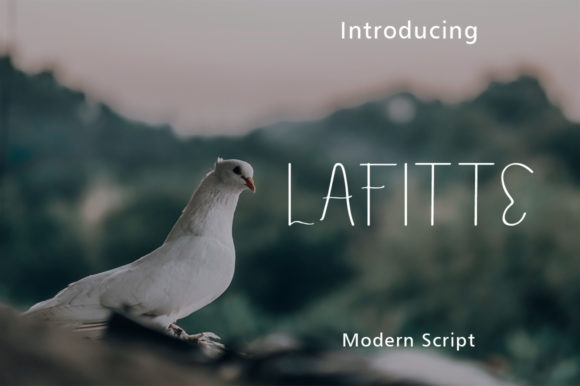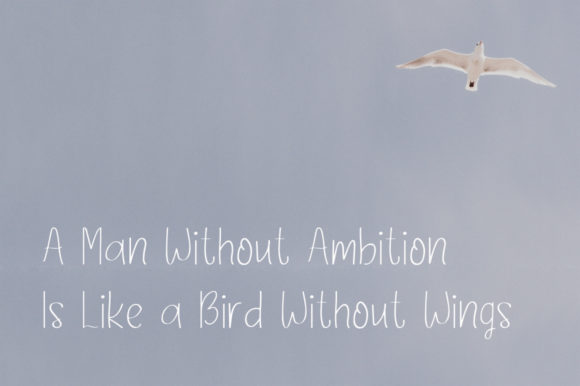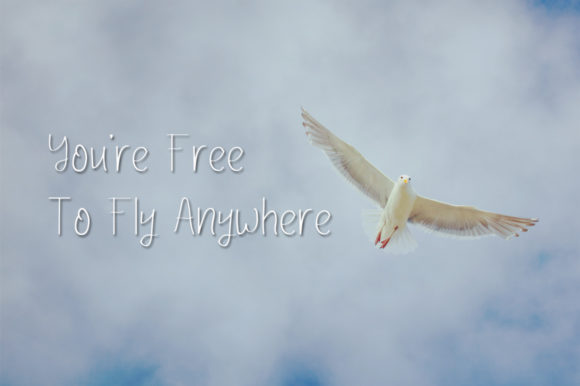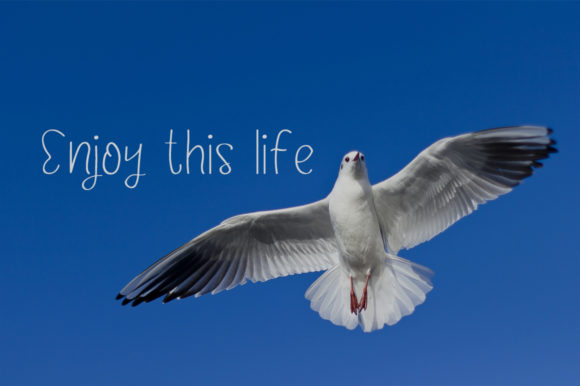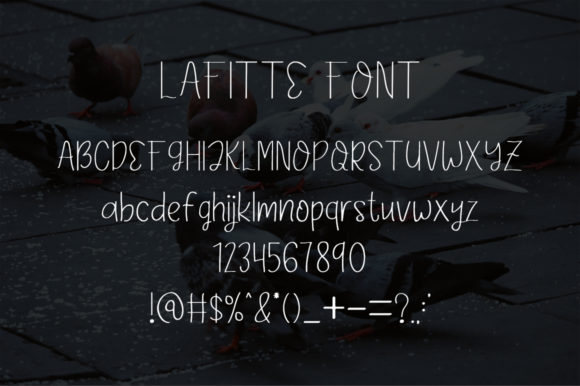
Lafitte Font
About Lafitte Font
Lafitte is a simple and elegant handwritten font. Its natural and unique style makes it incredibly fitting to a large pool of designs. The only limit is your imagination!